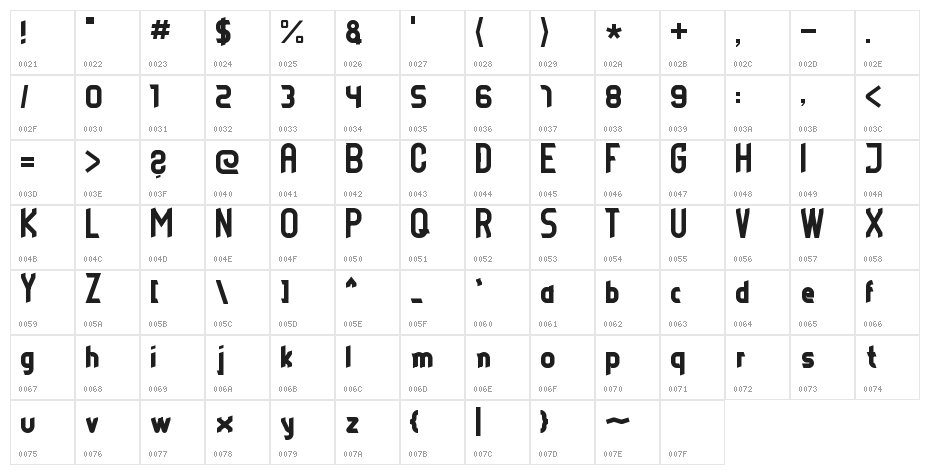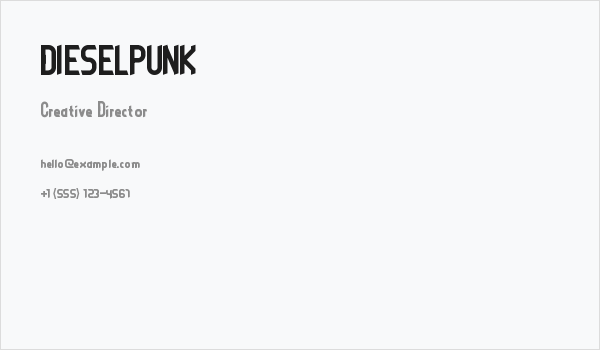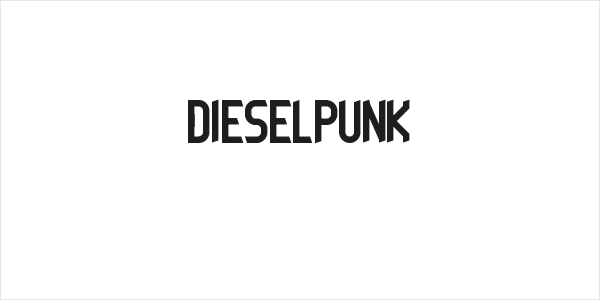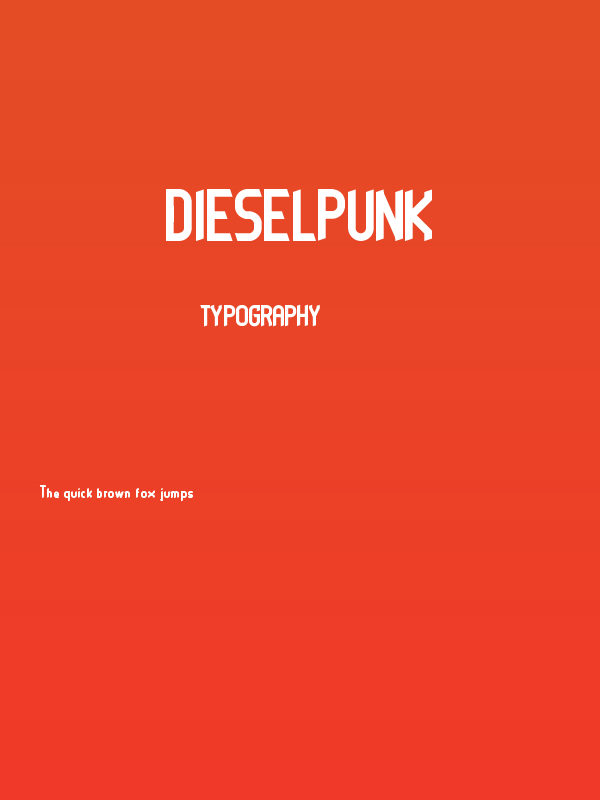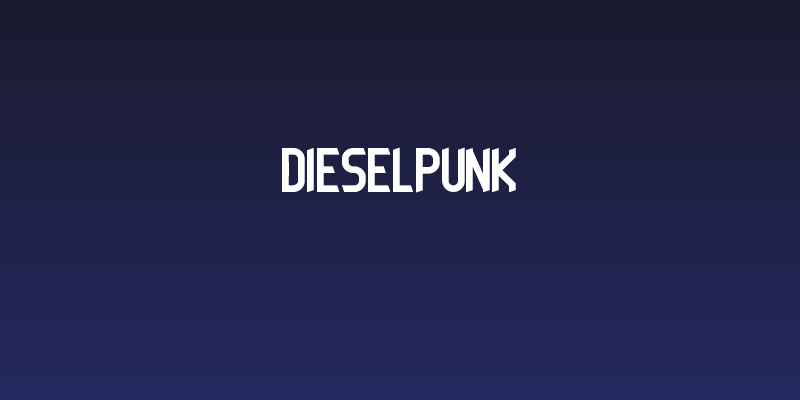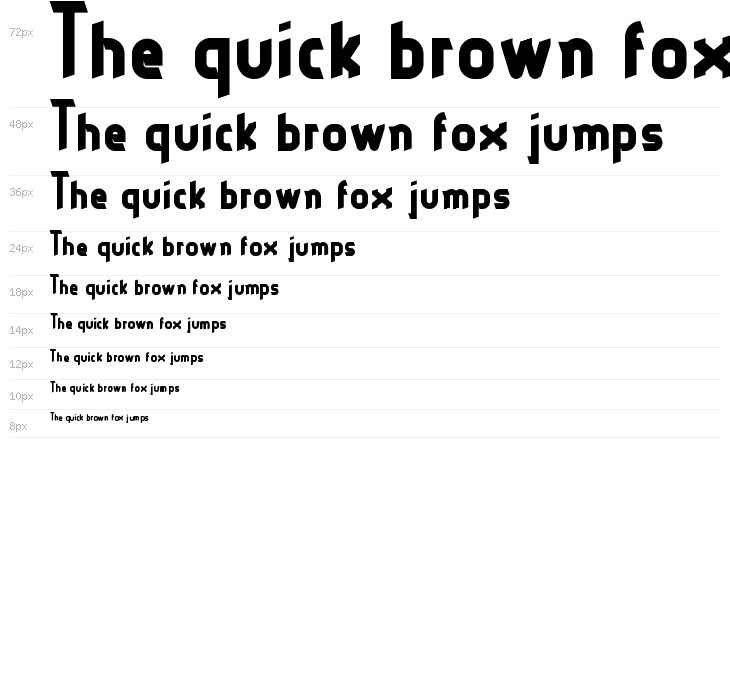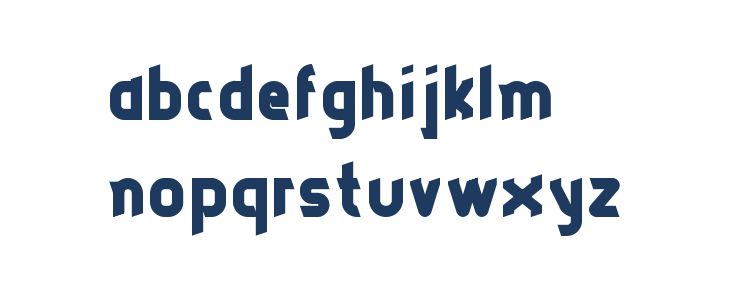
DIESELPUNK Font
DIESELPUNK Description
This font exhibits a bold, industrial aesthetic with sharp, angular lines and a distinct geometric structure. The uppercase letters are characterized by their strong, block-like forms, while the lowercase letters maintain a consistent style with slightly softer edges. The numerals are equally robust, featuring a uniform height and width that complements the overall design. Special characters are crafted with the same attention to detail, ensuring a cohesive look across all glyphs. This font's unique style is reminiscent of early 20th-century industrial design, making it ideal for projects that require a strong, impactful visual presence.
| Overall Style | Industrial, Modern |
| Proposed Projects | Ideal for branding, posters, video game graphics, and any project requiring a strong, industrial aesthetic. |